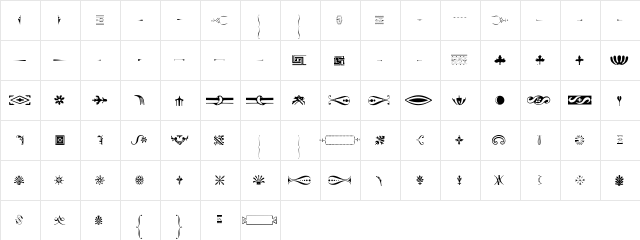
BodoniClassicOrnaments Regular
Design Context for BodoniClassicOrnaments Typeface
BodoniClassicOrnaments wears its vintage influences proudly, with letterforms that recall mid-century signage, classic packaging, and nostalgia-driven design.
Font Pairing: Combine BodoniClassicOrnaments with a simple slab or neutral sans — period-accurate companions reinforce the vintage feel without competing for attention.
Pro Tip: Lean into BodoniClassicOrnaments's period character by pairing it with aged paper textures, muted colour palettes, and vintage illustration styles.